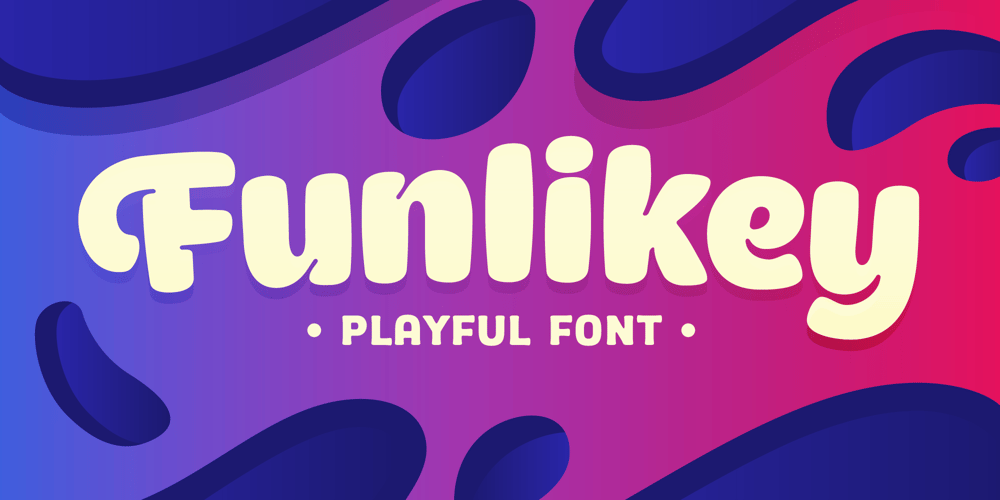
Funlikey Font Family was designed by Angga Kristiandri and published by Abbasy Studio. Funlikey contains 1 styles and family package options. Funlikey is a playful font whose unique, puffy, and bold appearance makes it an attention-grabbing choice for any design project. Its rounded corners and natural shape give it a quirky and endearing quality that will grab the attention of your target audience.